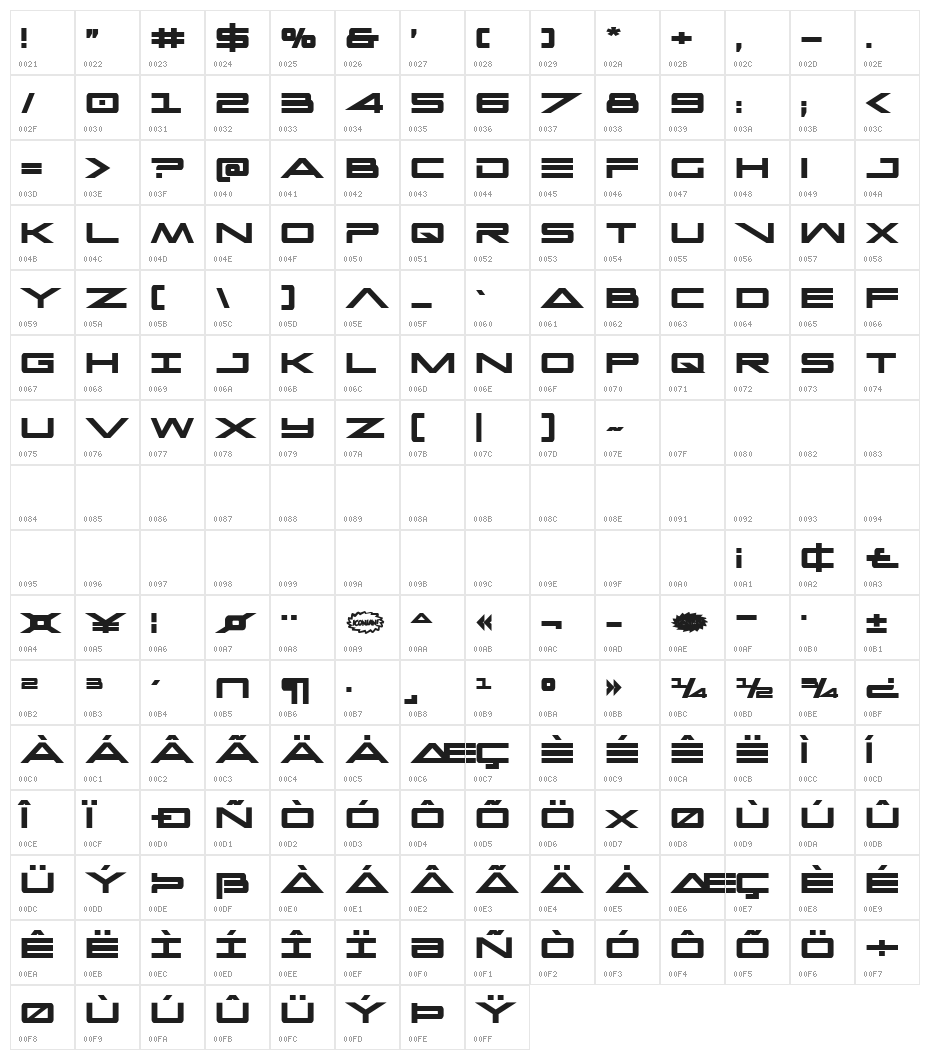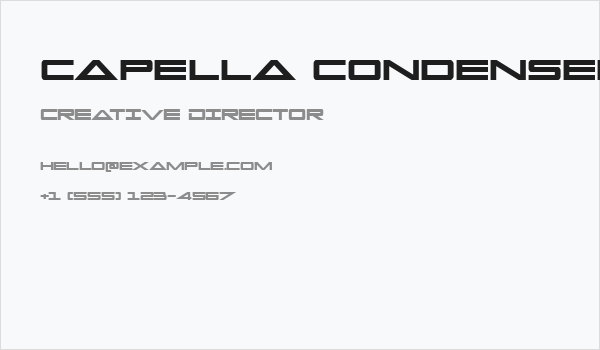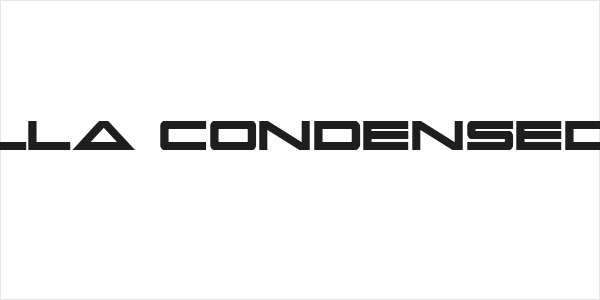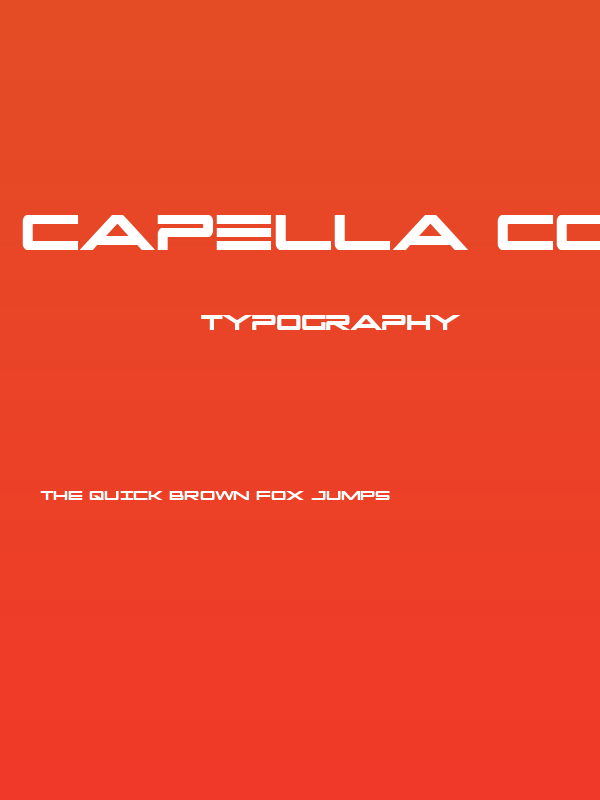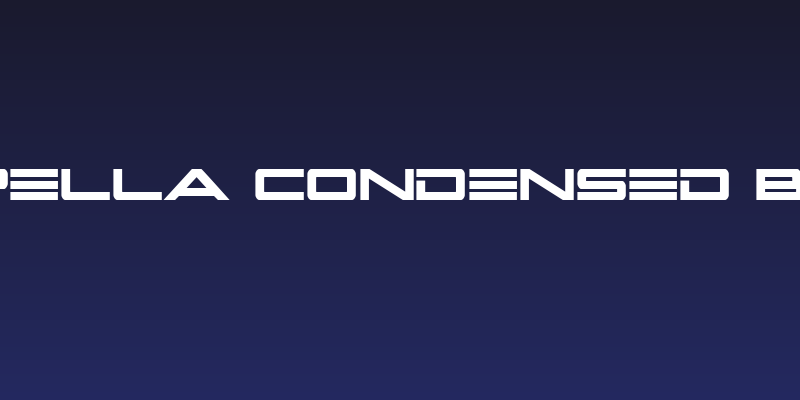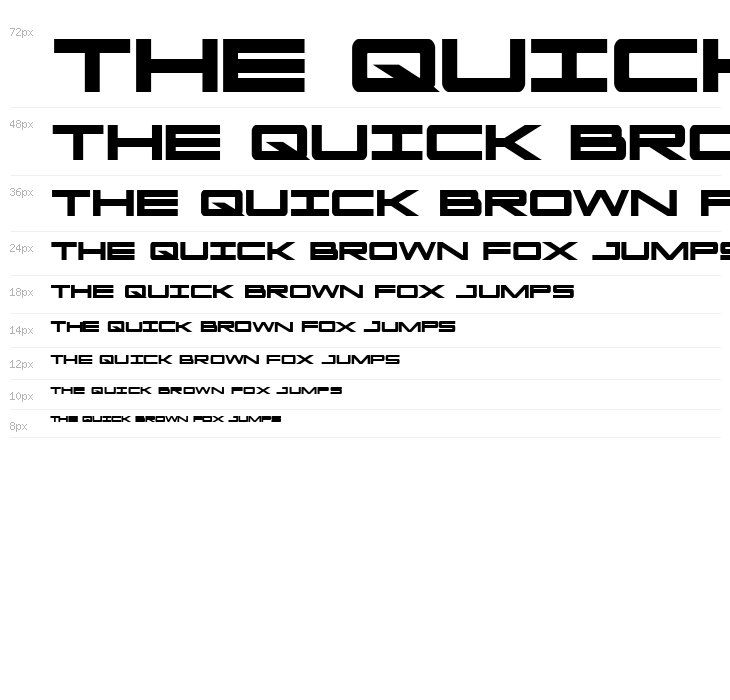
Capella Condensed Bold Font
Capella Condensed Bold Description
This font features a bold and condensed style with a futuristic and geometric design. The characters are constructed with sharp angles and straight lines, giving them a modern and edgy appearance. The uppercase letters are particularly striking, with a uniform height and width that create a cohesive look. The lowercase letters maintain the same geometric style, ensuring consistency across the typeface. The numerals are clear and bold, making them easily readable. Special characters are designed to match the overall aesthetic, with a focus on symmetry and balance. This font is ideal for projects that require a strong, contemporary look.